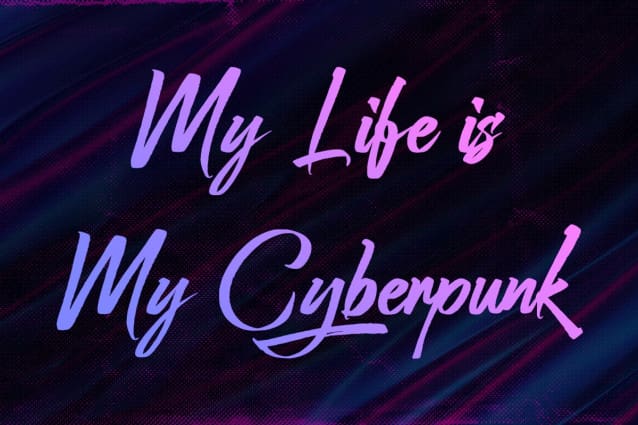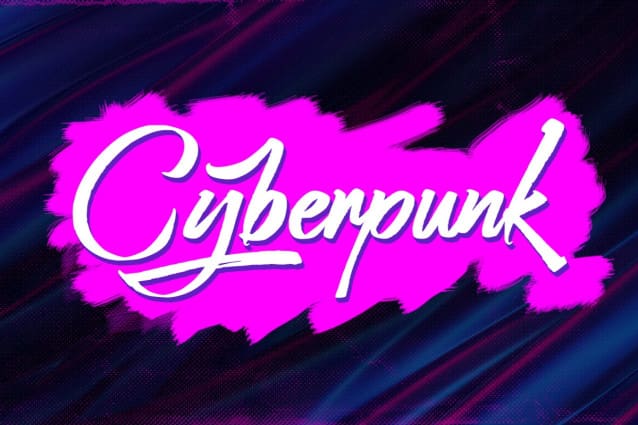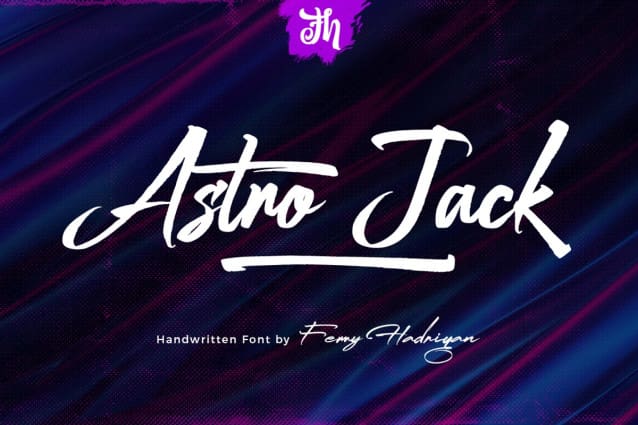
Astro Jack Font
Astro Jack Font is script font with handlettering brush style, with opentype feature include of the font. Suitable for design, element design, wedding, event, t-shirt, logo, badges, sticker, and awesome work, etc…